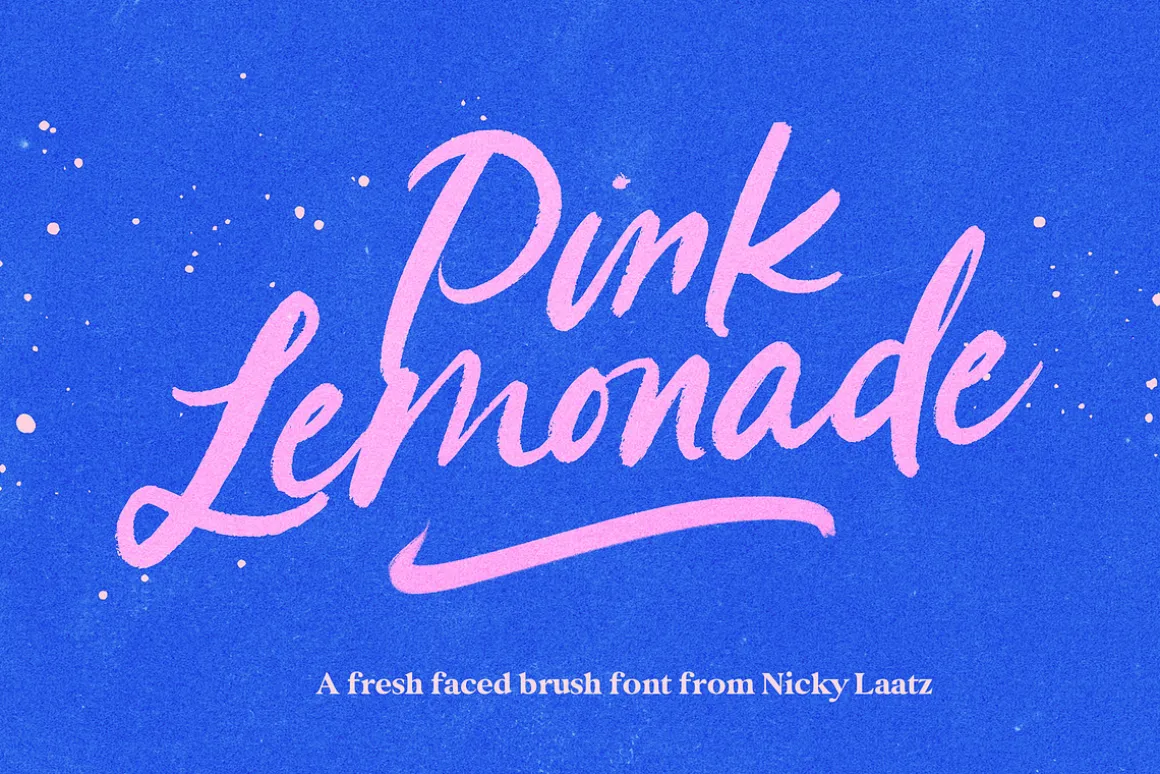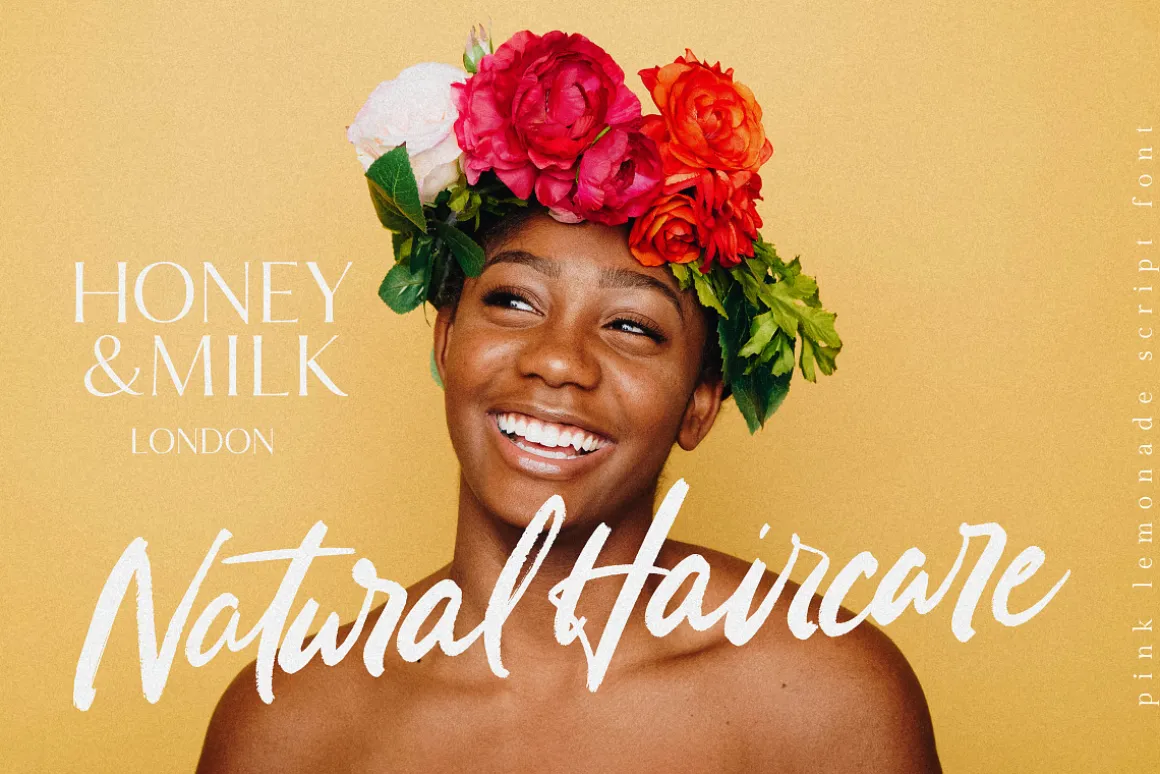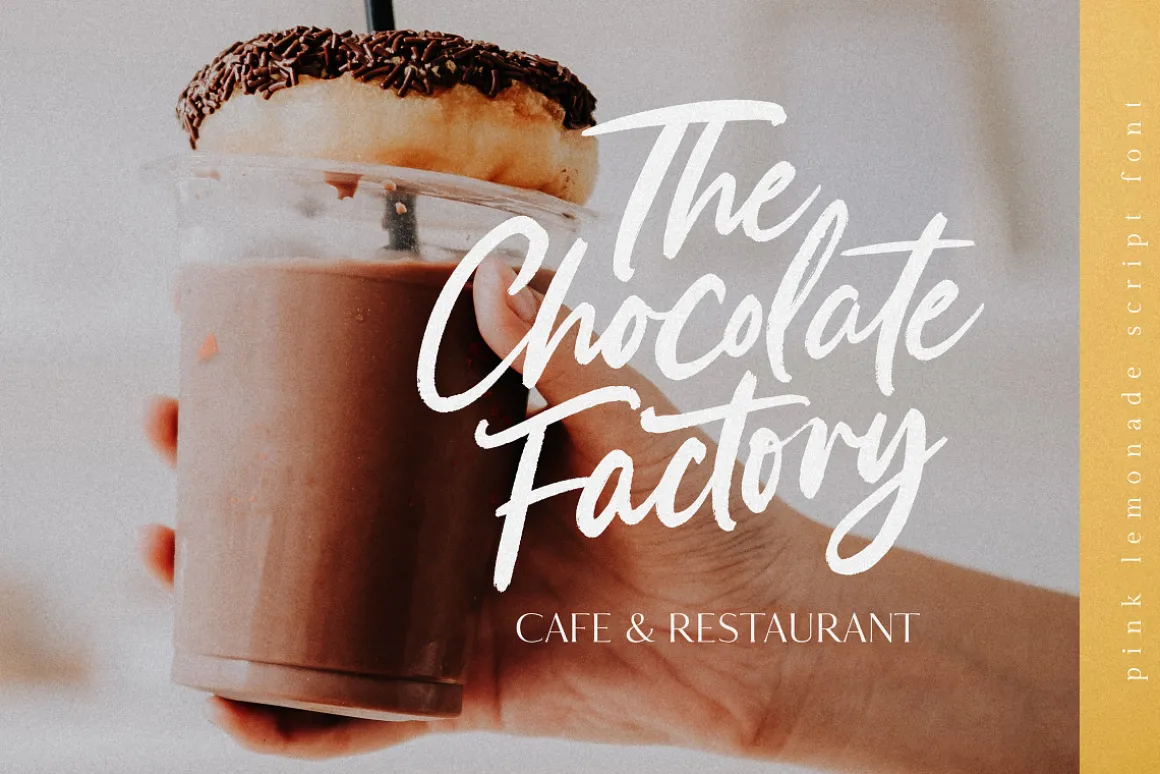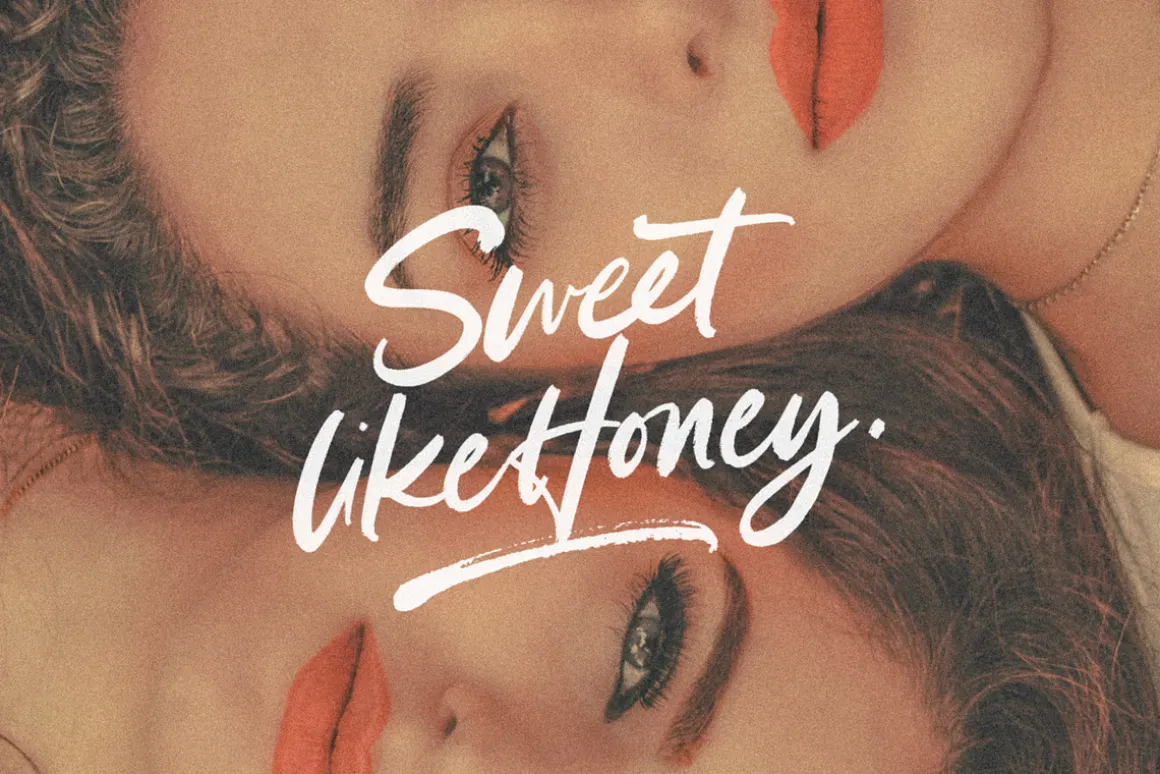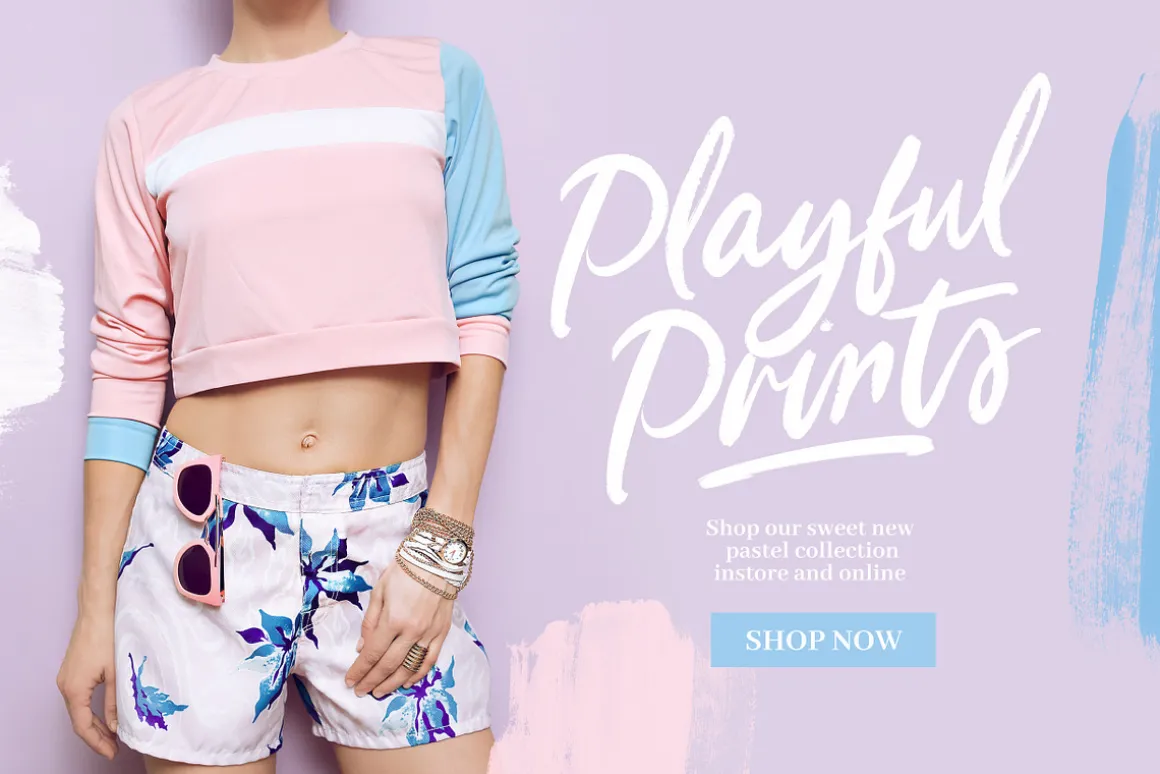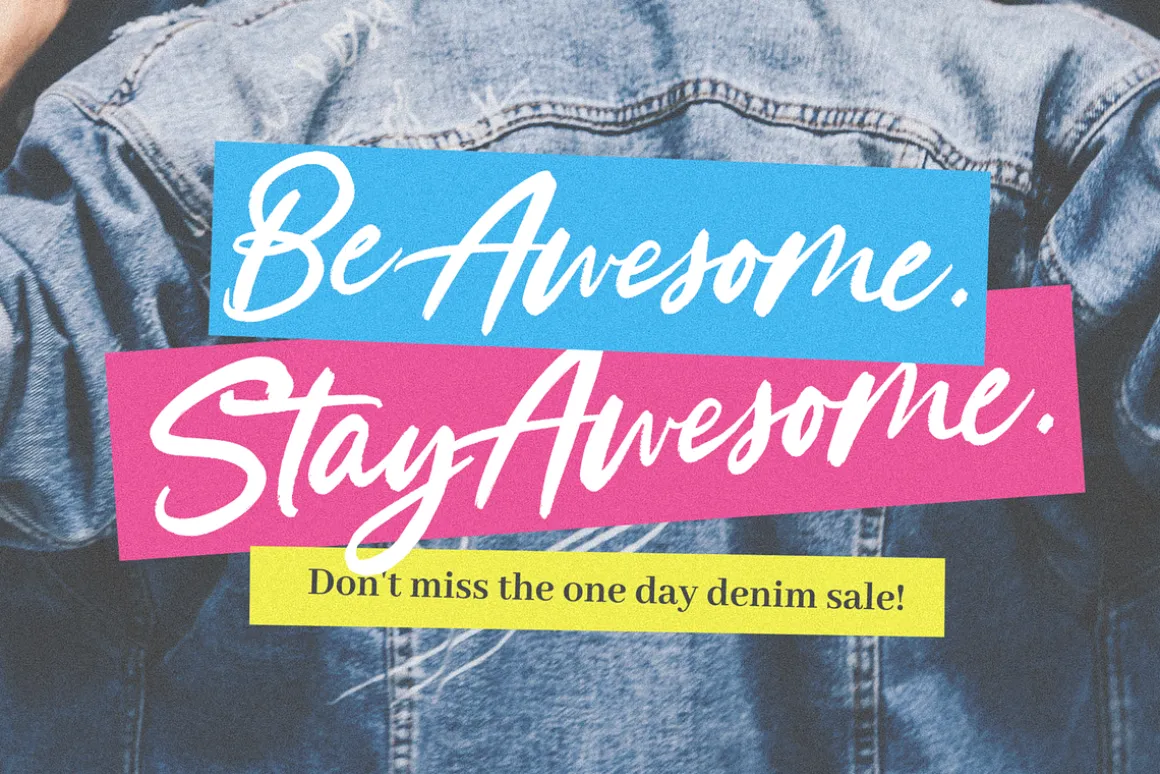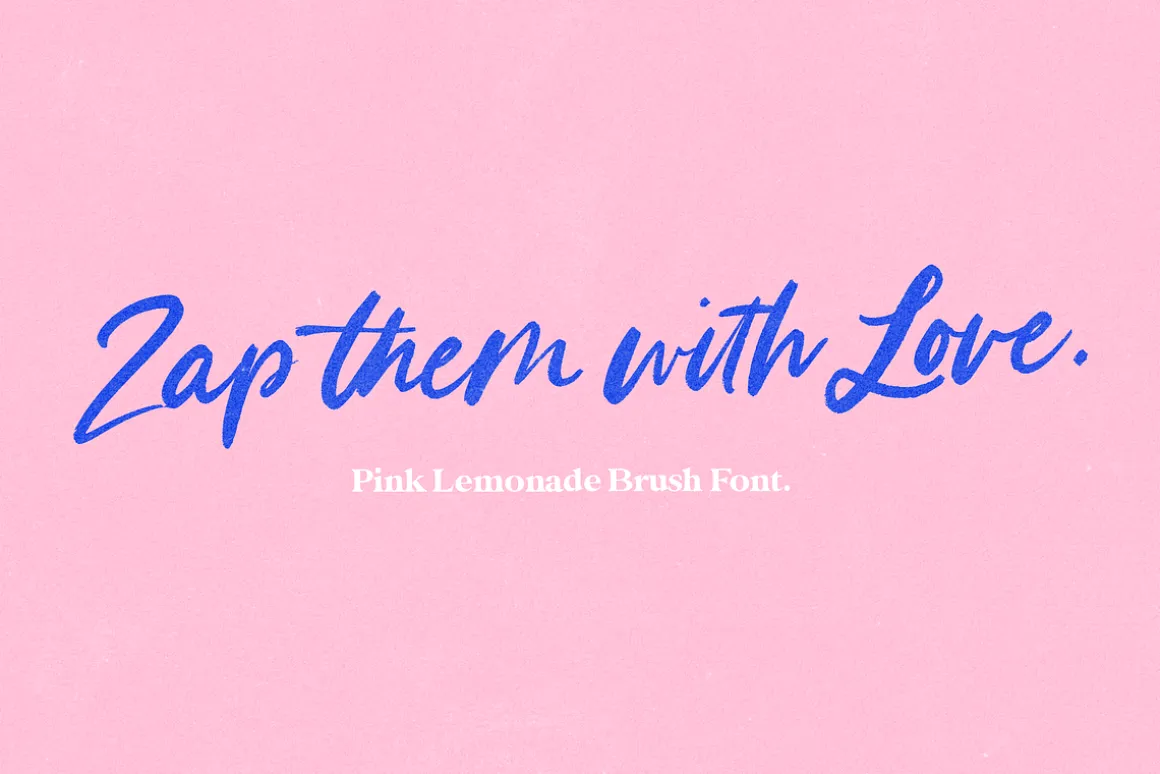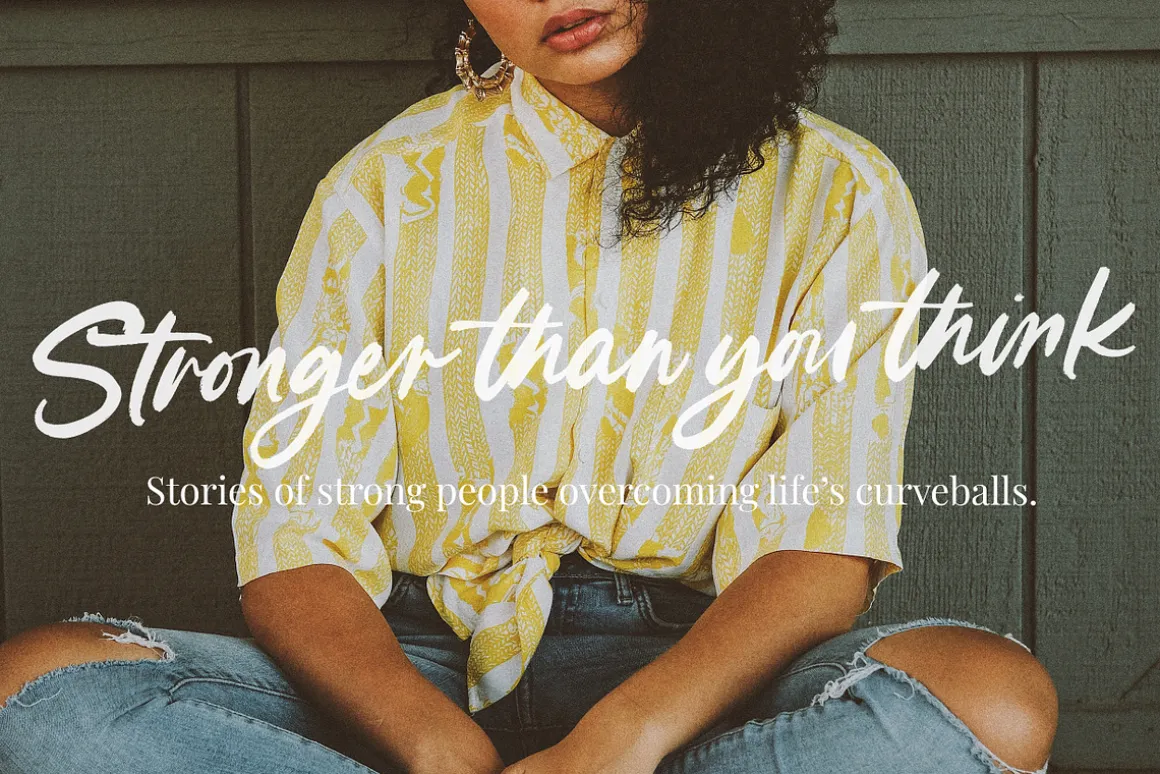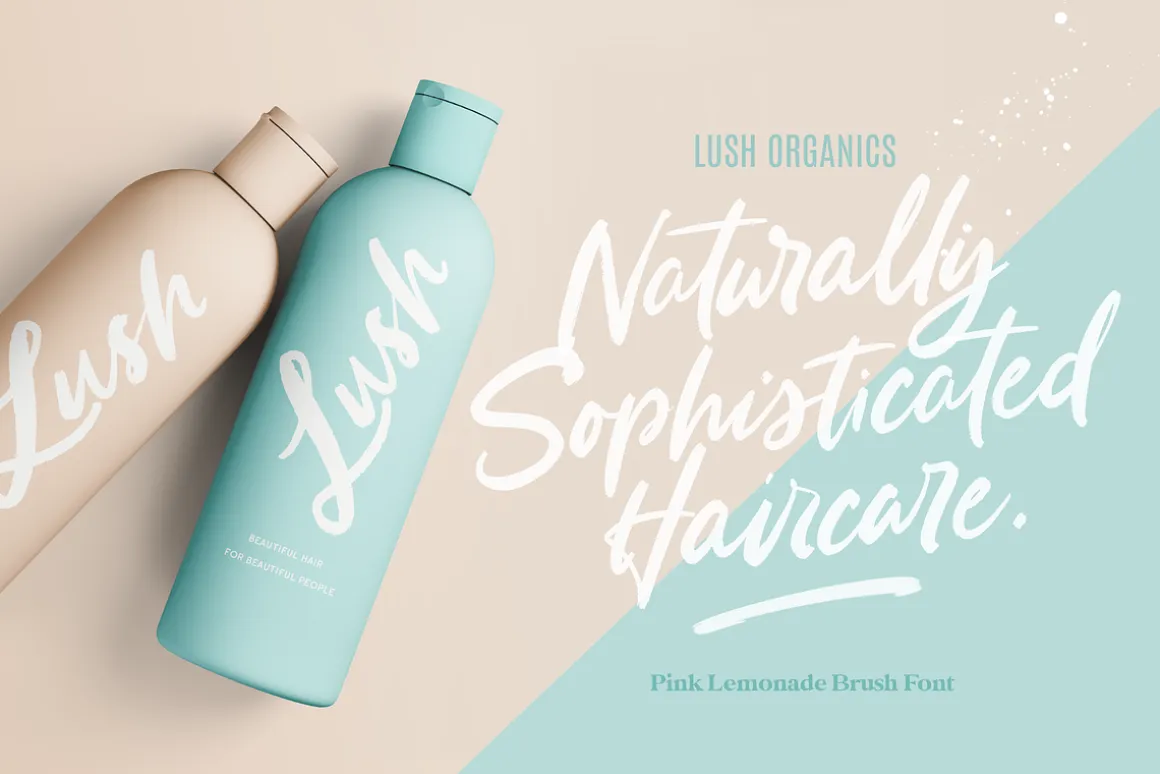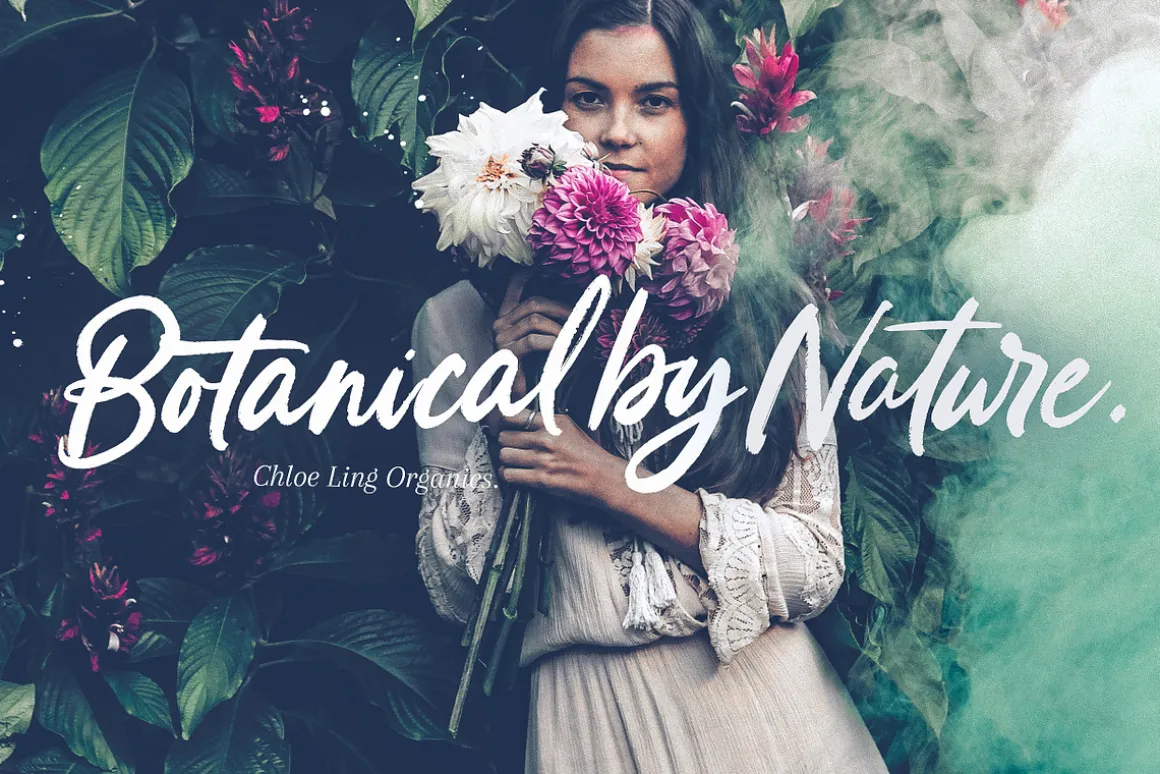
Introducing Pink Lemonade – A new freshly painted, bold brush font!
Sweet, casual and curvy with a touch of funk, Pink Lemonade is meant to emulate natural brush lettering with subtle brush texture left in – perfect for head-turning statements and eye-catching branding.
Pink Lemonade includes 45 natural-looking Opentype ligatures – perfect for making your words look freshly lettered, and like less of a font. Try alternating between having the ligatures active and not active for an even more natural look.
Pink Lemonade will work wonderfully for beauty branding, posters, music brands, magazines, cosmetics, cookbooks, culinary art, book covers, sporting brands, bold headliners, t-shirts, merchandise and websites.